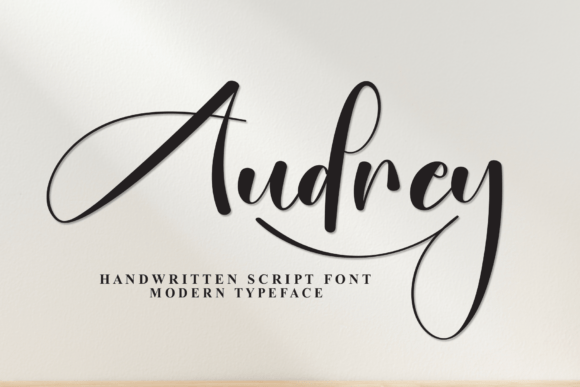
The Perfect Script: Elevate Your Branding with Audrey Font
You’ve spent hours poring over design inspiration boards, pouring your heart and soul into a new project, and finally, it’s time to bring your vision to life. But, as you search for the perfect font to complete the look, you can’t help but feel like something’s missing. That’s where Audrey Font comes in – a modern handwritten script font that’s sure to elevate your branding to new heights of refinement.
With its exquisite, sweeping flourishes and delicate, fluid rhythm, Audrey Font is the perfect choice for designers looking to add a touch of high-end sophistication to their work. Whether you’re creating premium packaging, a website, or marketing materials, this typeface is sure to provide a bespoke, professional finish that feels timeless and curated.
So, why is Audrey Font so valuable for designers? For one, its unique blend of slender connectors and confident, bold downstrokes creates a visual balance that’s both high-fashion and deeply personal. It’s the perfect way to add a touch of personality to your brand, without sacrificing professionalism.
Audrey Font Key Features
- Font Style: Script, Casual
- Unique Characteristics: Hand-drawn, elegant, and refined; ideal for wedding invitations, greeting cards, and other special occasions
Audrey Font Review
As a designer, I was excited to try out the Audrey Font and see how it would perform in my projects. Here’s my honest review.
- Classic and elegant design: The Audrey Font is a beautiful, classic font that adds a touch of sophistication to any project.
- High legibility: The font is highly legible, making it perfect for body text, titles, and headings.
- Great for print and digital use: The font is suitable for both print and digital projects, from business cards to websites.
- Not ideal for display text: While the font is great for body text, it may not be the best choice for display text, as it can get a bit too formal.
- May not be as expressive as other fonts: The Audrey Font is a classic, elegant font, but it may not be as expressive or creative as other fonts on the market.
Overall, I think the Audrey Font is a solid choice for designers who want a classic, elegant font that’s easy to read and works well in a variety of projects. However, it may not be the best choice for designers who want a more expressive or creative font.
Audrey Font is ideal for:
Creating elegant and sophisticated designs.
Adding a touch of luxury to your branding and marketing materials.
Creating custom typography and headings.
Alternatives to Audrey Font for Designers
Montserrat is a modern sans-serif font designed by Julieta Ulanovsky. It’s a versatile font suitable for digital and print projects. Montserrat is a great alternative to Audrey Font when you need a clean and minimalist look. Montserrat is more geometric and has a stronger x-height compared to Audrey Font.
Lato is a modern sans-serif font designed by Łukasz Dziedzic. It’s a highly legible font suitable for digital and print projects. Lato is a great alternative to Audrey Font when you need a font with a friendly and approachable feel. Lato has a more rounded and soft look compared to Audrey Font.
Open Sans is a modern sans-serif font designed by Steve Matteson. It’s a highly legible font suitable for digital projects. Open Sans is a great alternative to Audrey Font when you need a font with a clean and neutral look. Open Sans has a more condensed and geometric look compared to Audrey Font.